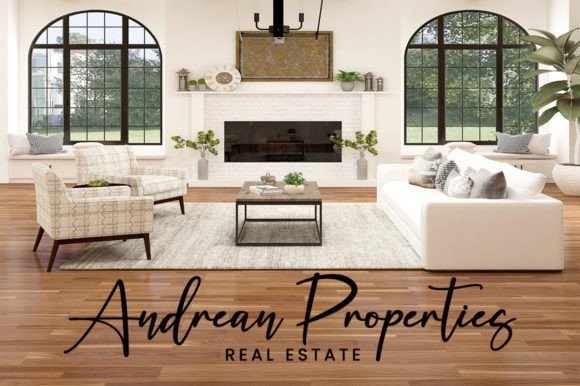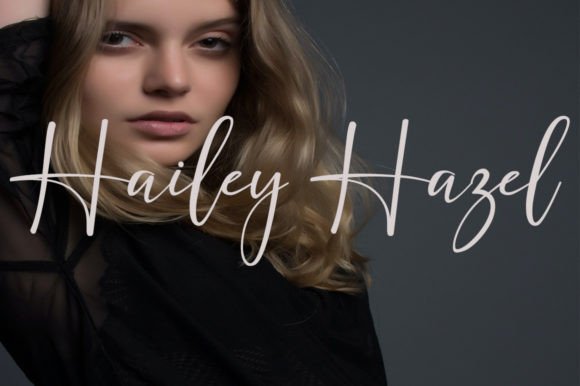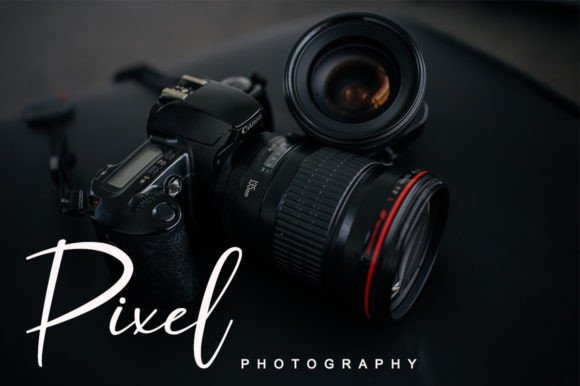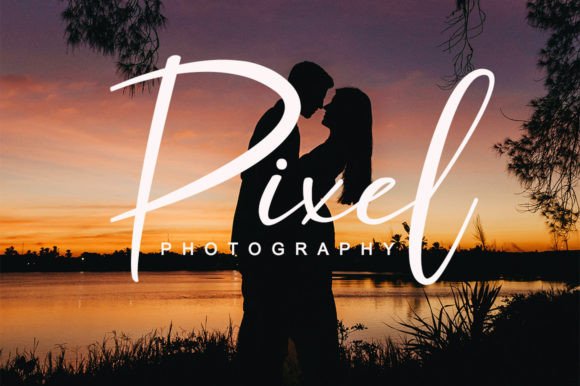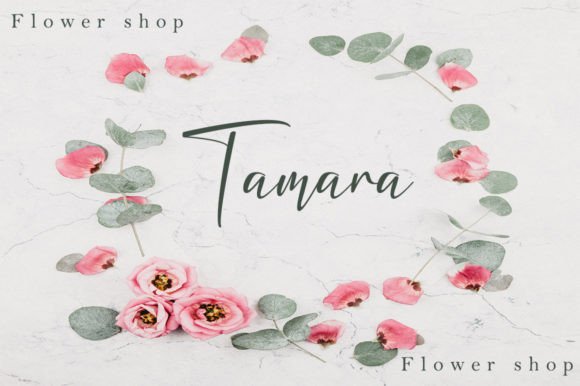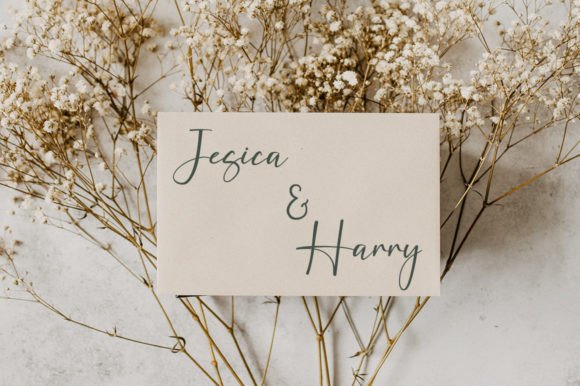
Introducing Anastasya Font: Elevate Your Designs with Elegance and Refinement
Are you looking for a font that adds a touch of sophistication and glamour to your designs? Look no further than Anastasya, a stunning script font that’s perfect for projects that require a dash of elegance and refinement. In this article, we’ll dive into the world of Anastasya, exploring its features, benefits, and uses, as well as provide tips on how to make the most of this beautiful font.
The Beauty of Anastasya
Anastasya is a stylish and beautiful script font that’s designed to impress. Its flowing curves and delicate strokes give it a graceful and feminine appeal that’s perfect for a wide range of design applications. Whether you’re creating invitations, branding materials, or simply want to add a touch of elegance to your website or social media graphics, Anastasya is the perfect choice.
One of the standout features of Anastasya is its exquisite charm. This font is carefully crafted to convey a sense of sophistication and luxury, making it ideal for high-end designs. The flowing curves and delicate strokes of Anastasya give it a sense of movement and fluidity, making it perfect for designs that require a touch of dynamism.
Features of Anastasya Font
So, what makes Anastasya so special? Here are just a few of its key features:
- Stylish and elegant design: Anastasya boasts a beautiful, flowing script design that’s perfect for adding a touch of sophistication to your designs.
- Feminine appeal: The delicate strokes and curves of Anastasya give it a distinctly feminine charm that’s perfect for designs that require a touch of elegance.
- Versatile: Anastasya is perfect for a wide range of design applications, from invitations and branding to website graphics and social media posts.
- Easy to read: Despite its elegant design, Anastasya is surprisingly easy to read, making it perfect for body text as well as headings.
Uses of Anastasya Font
So, what can you use Anastasya for? The possibilities are endless! Here are just a few ideas to get you started:
- Invitations: Add a touch of elegance to your wedding invitations, birthday party invites, or any other special occasion with Anastasya.
- Branding: Use Anastasya to create stunning brand logos, business cards, or letterheads that exude sophistication and luxury.
- Website graphics: Add a touch of elegance to your website with Anastasya, perfect for headings, titles, or even body text.
- Social media graphics: Stand out on social media with stunning graphics created with Anastasya, perfect for Instagram, Facebook, or Twitter.
Tips for Using Anastasya Font
To get the most out of Anastasya, here are a few tips to keep in mind:
- Pair with a sans-serif font: For maximum impact, pair Anastasya with a clean, sans-serif font to create a striking contrast.
- Use for headings and titles: Anastasya is perfect for headings and titles, so use it to add a touch of elegance to your designs.
- Experiment with colors: Anastasya looks stunning in a range of colors, so don’t be afraid to experiment and find the perfect shade for your design.
In conclusion, Anastasya font is a stunning script font that’s perfect for designs that require a touch of elegance and refinement. With its flowing curves, delicate strokes, and exquisite charm, Anastasya is sure to impress. Whether you’re a designer, crafter, or simply someone who appreciates beautiful typography, Anastasya is a must-have font in your collection. So why wait? Head over to BeautifulScript and start elevating your designs with Anastasya today!